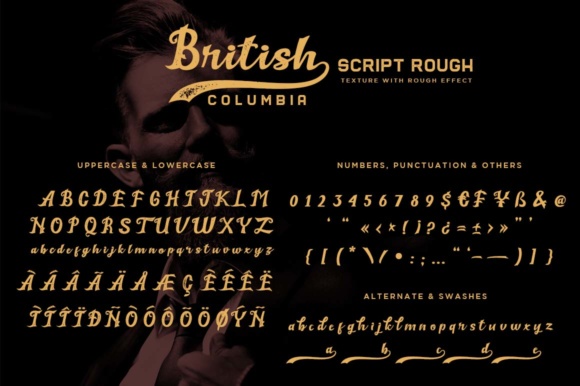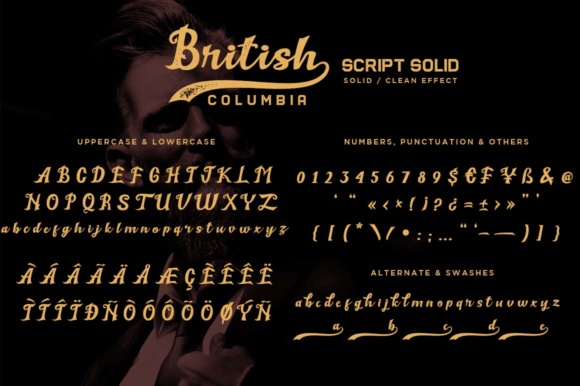
British Columbia Family Font
db-ku.com - Script & Handwritten -- The British Columbia Collection contains a set of 3 fonts which all come in two weights: rough and solid, and will add an authentic handcrafted look to your designs.